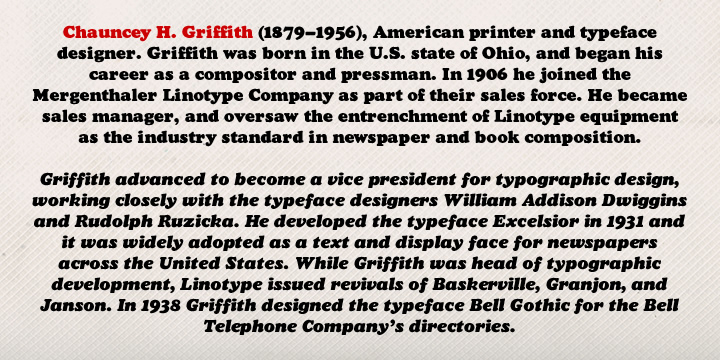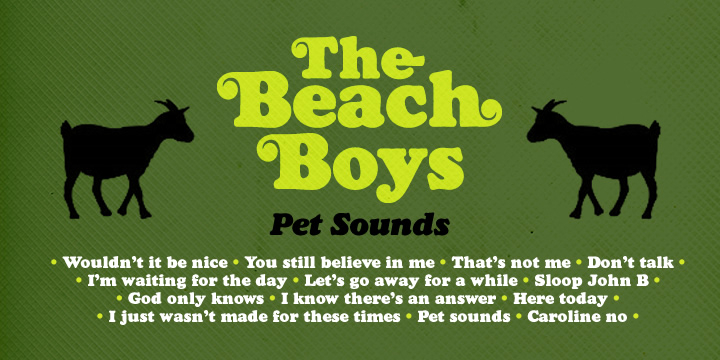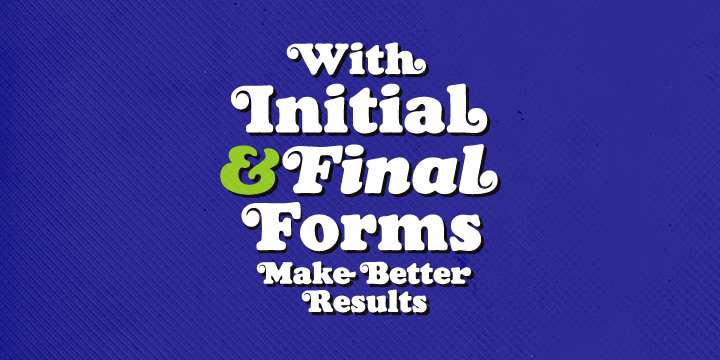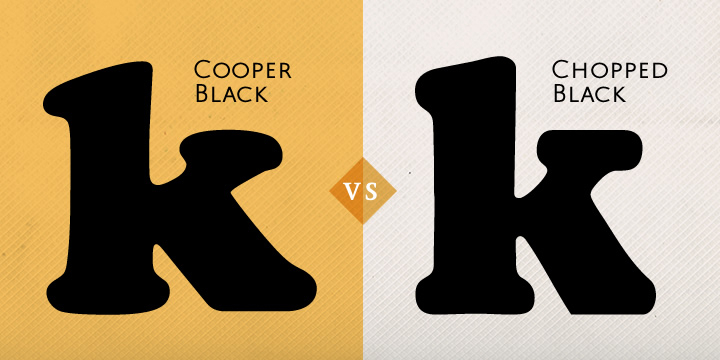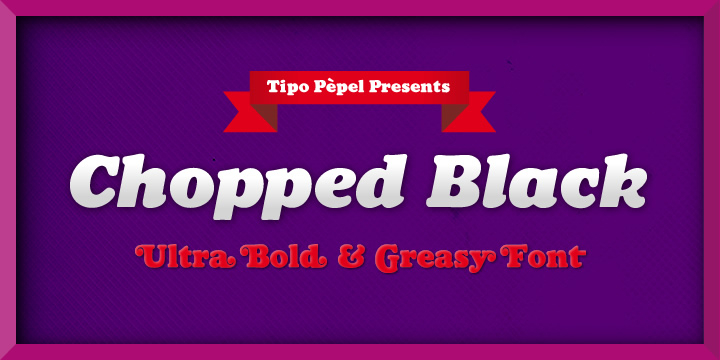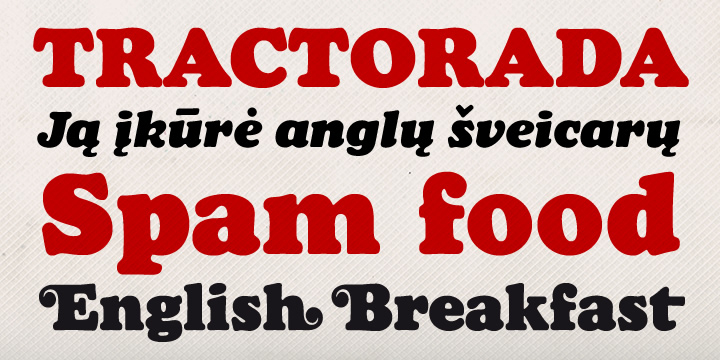
Chopped is a display serif font family. This typeface has two styles and was published by Tipo Pépel.
This typeface was inspired by the font Pabst Heavy, designed by Chauncey Hawley Griffith in 1928 for Linotype. Because of its formal characteristics, recalls the popular Cooper Black and probably was the reaction of Linotype to counter the popularity of this font distributed by the “American Type Founders” was acquired.
It’s a heavy typeface, ideal for headlines or for use in creating logos, rounded shapes and gestures evoke dynamism and make it perfect to highlight specific words or phrases.